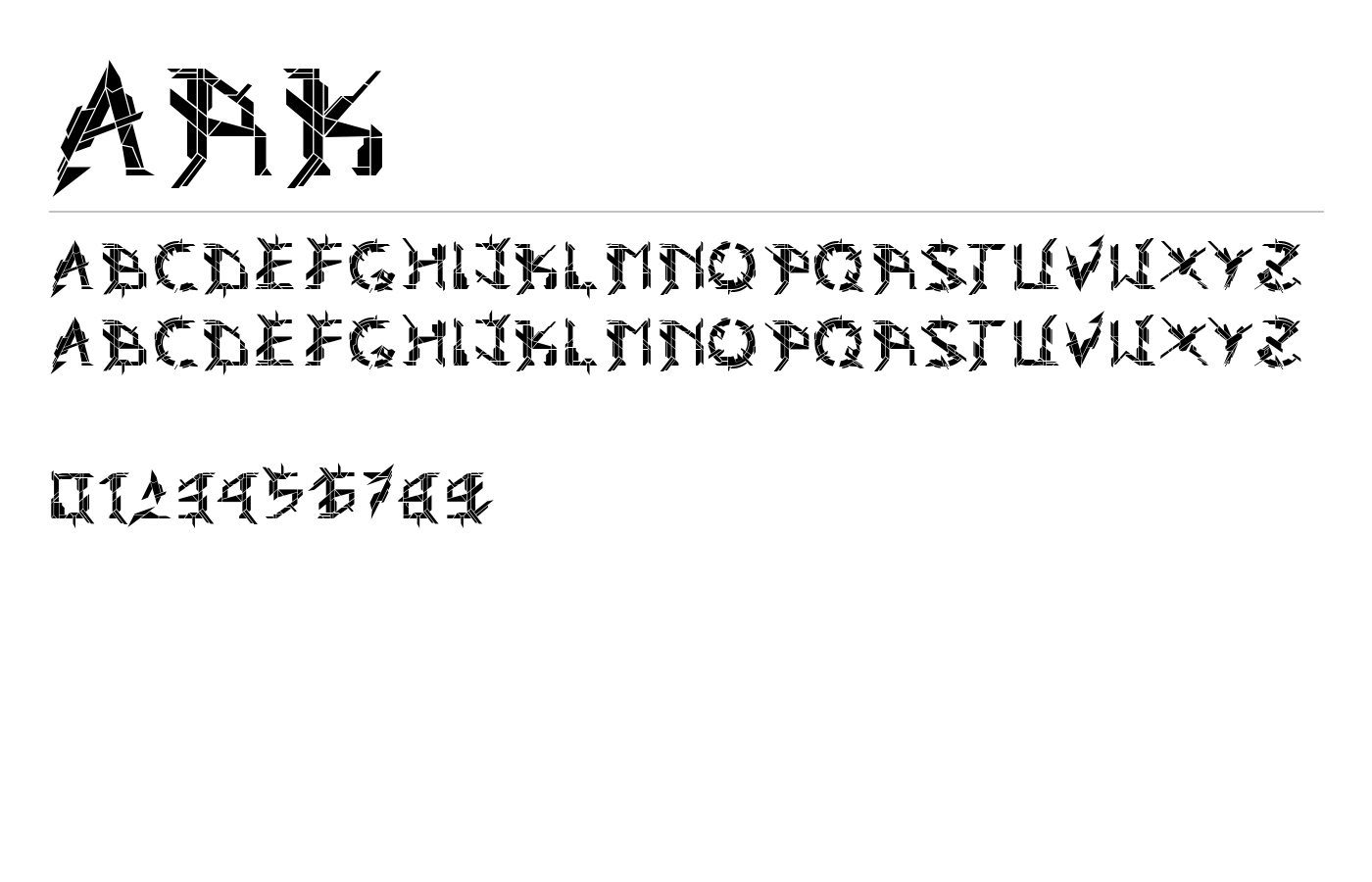
Ark Font is a bold, decorative typeface with a futuristic and fragmented geometric design. Its sharp, angular strokes and intricate cut-out patterns give it a striking, high-tech appearance perfect for attention-grabbing headlines, logos, and creative projects that seek a modern, edgy vibe. This font works best in display settings where its unique style can stand out and convey innovation or digital-inspired themes.
Ark Font
About Ark Font
| Font family | Ark Font |
| Designer | Bagus Belo Prayogo |